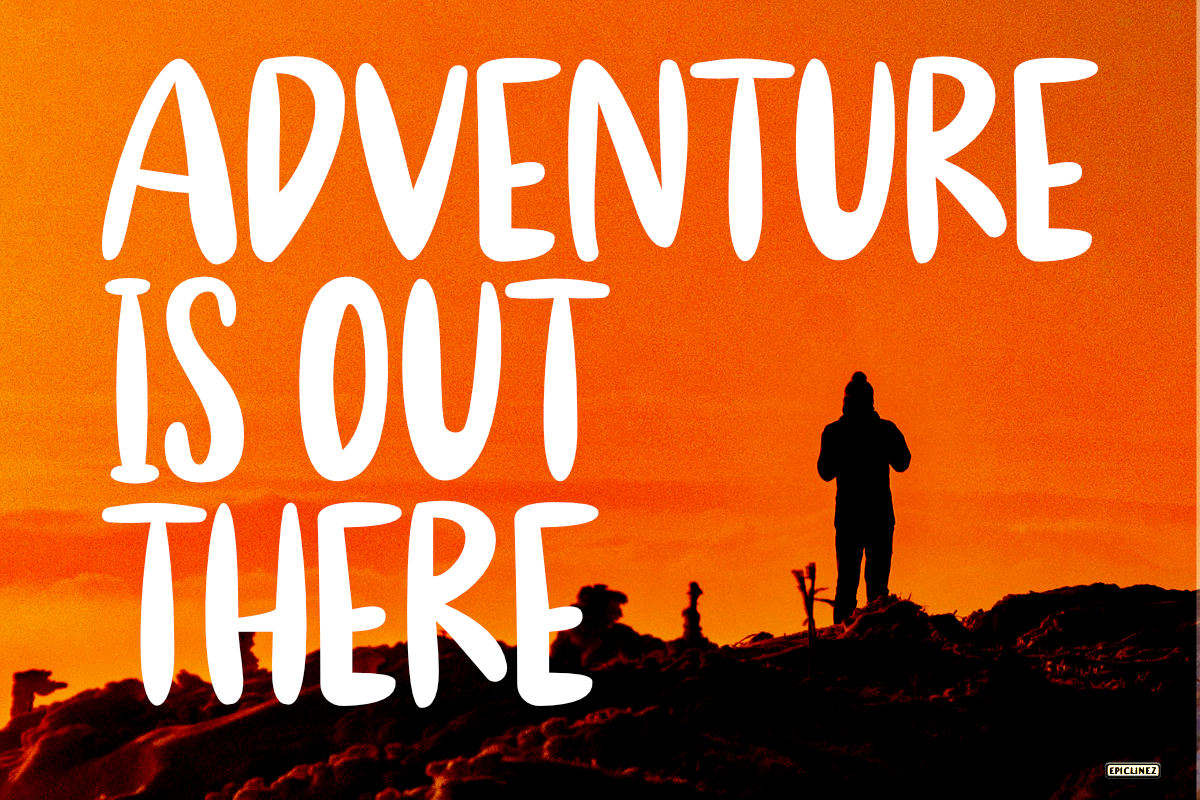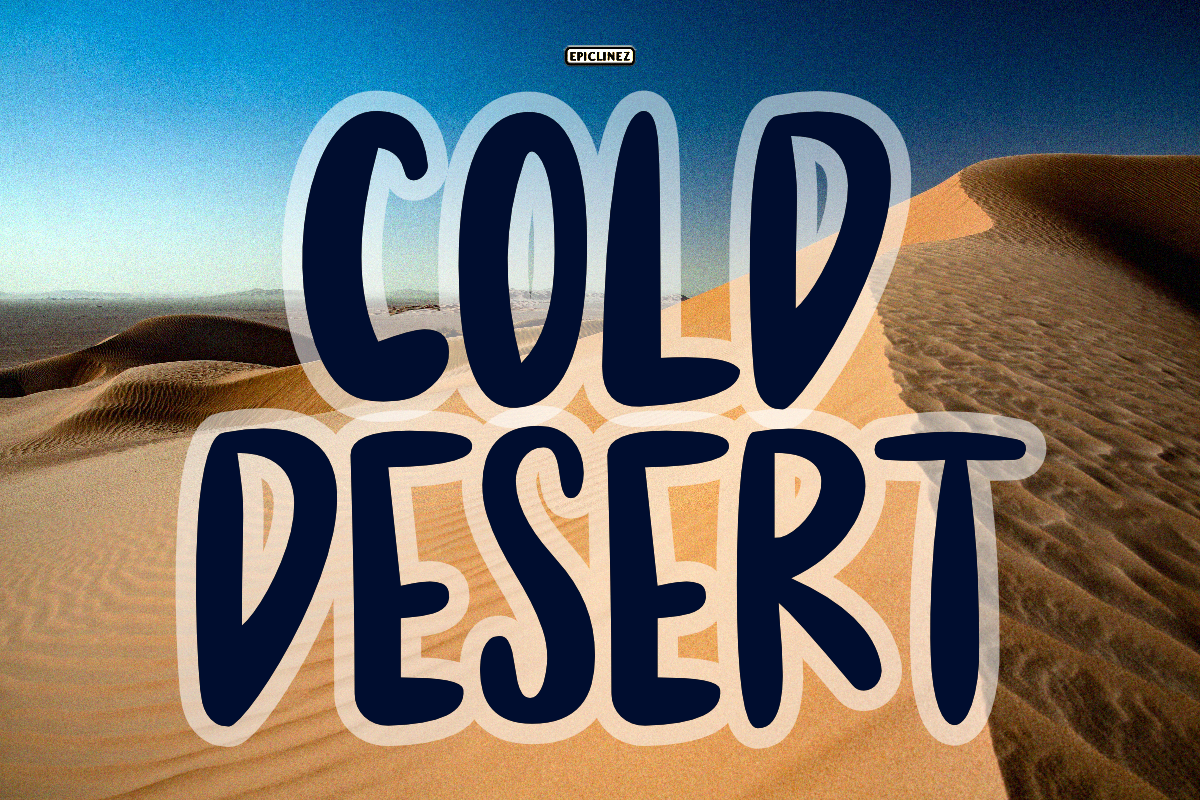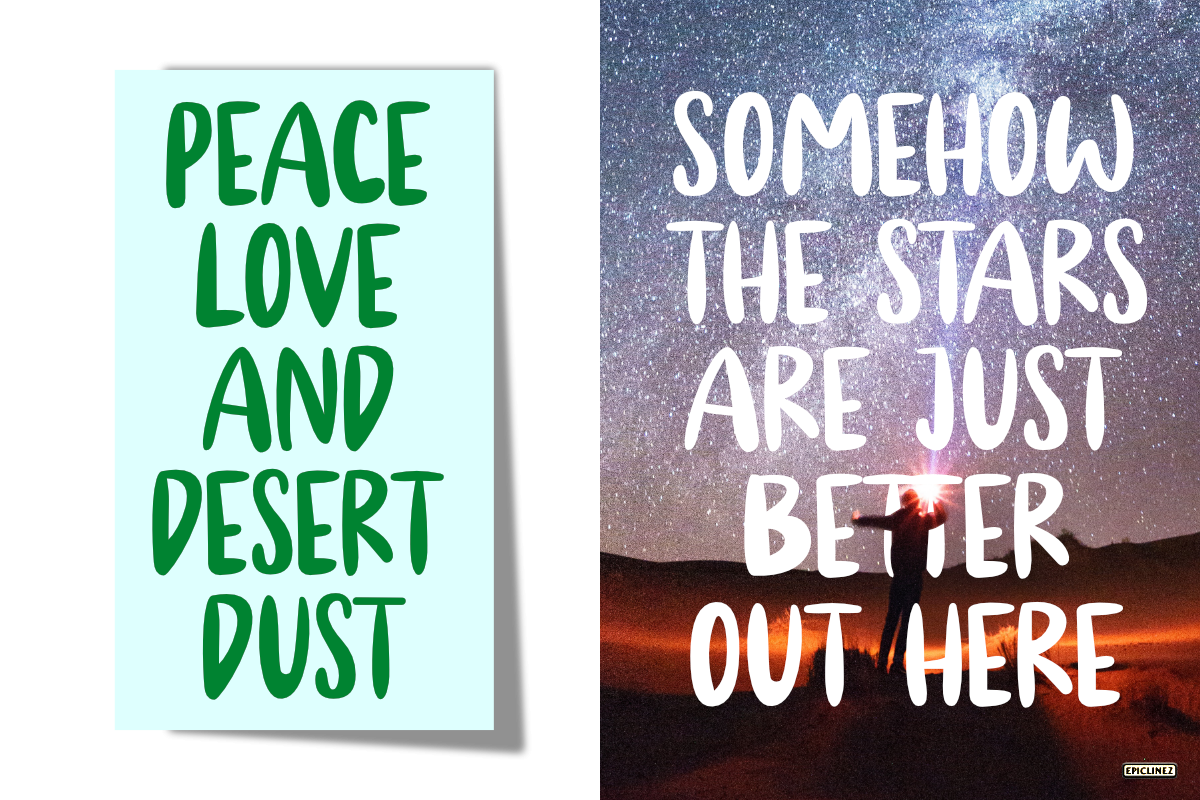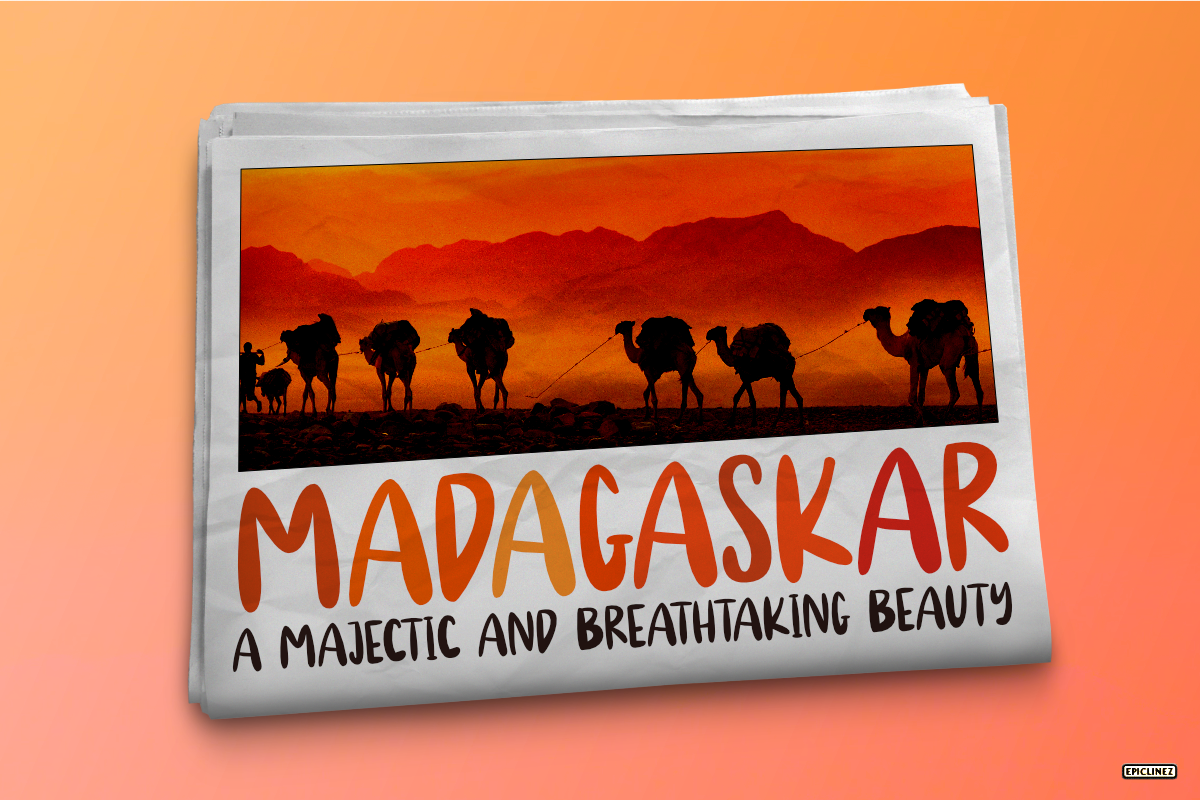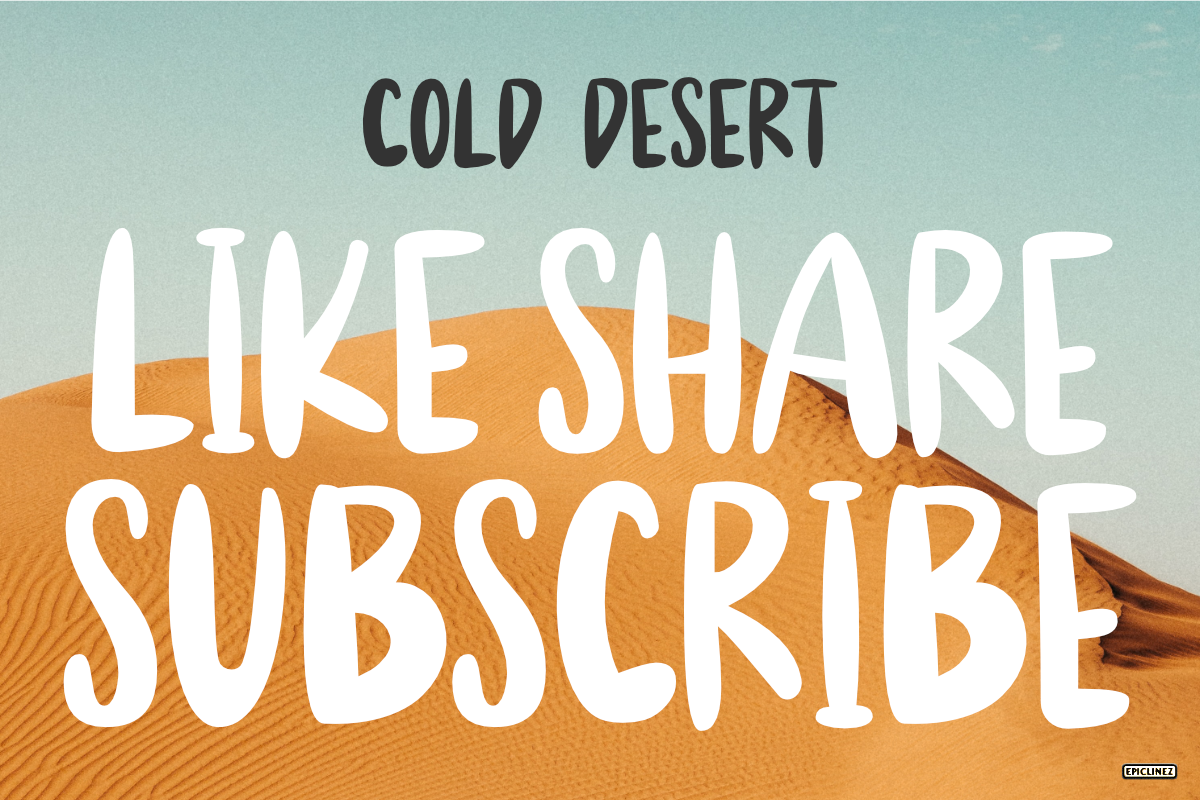
Cold Desert | Handwritten Font
Cold Desert is a bold and cool handwritten font. Carefully handcrafted to fit most of your crafty projects.
- Basic Latin A-Z, a-z, numbers, symbols, punctuations, and ligatures